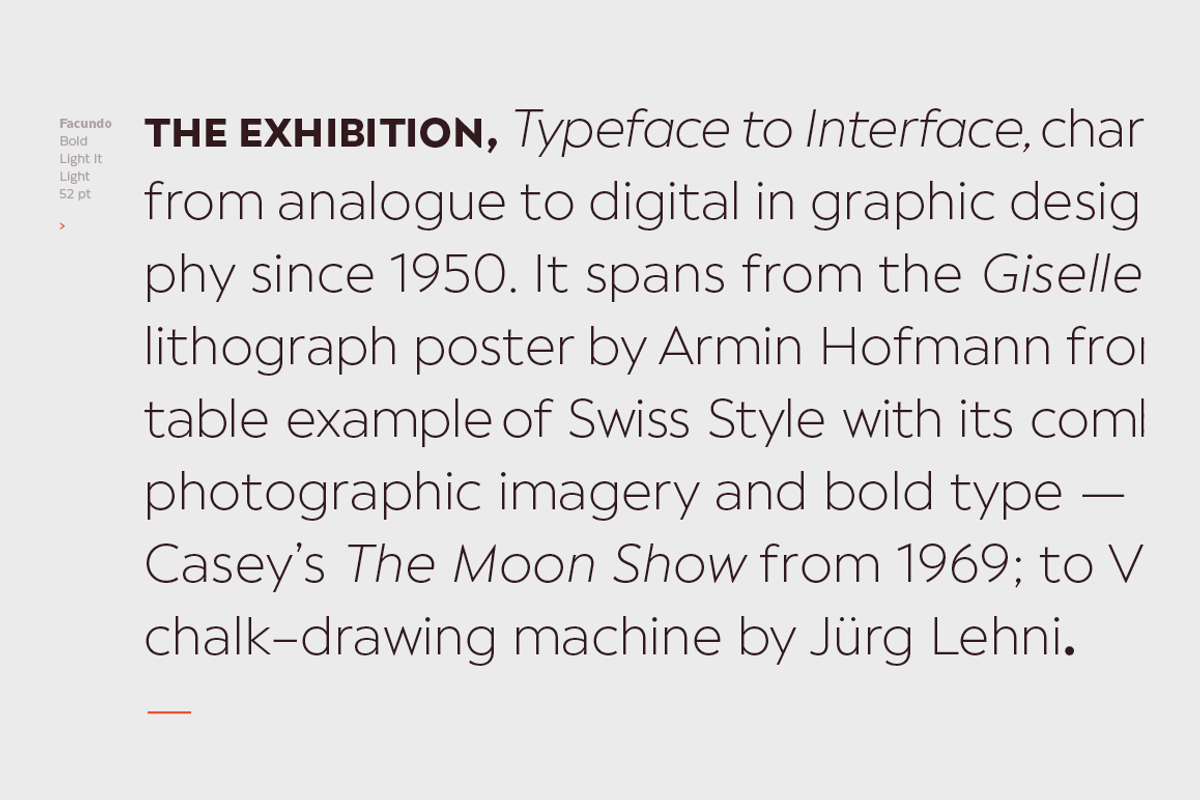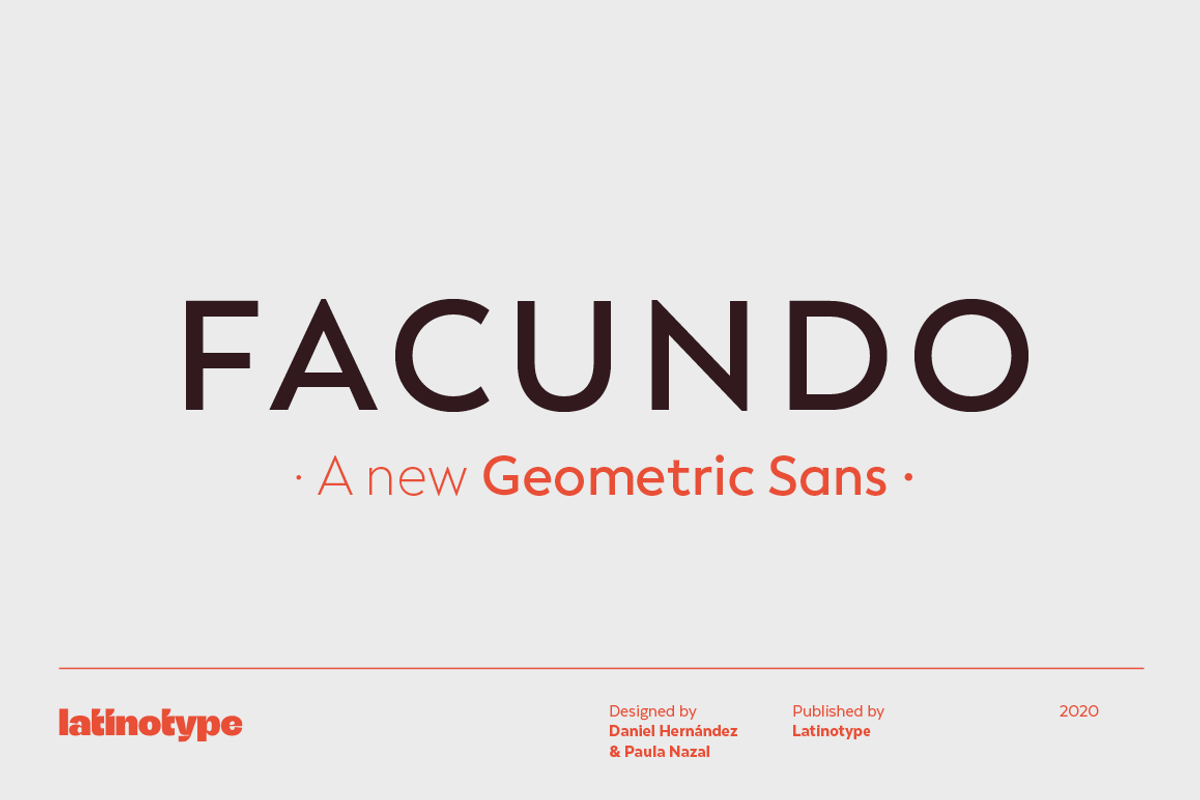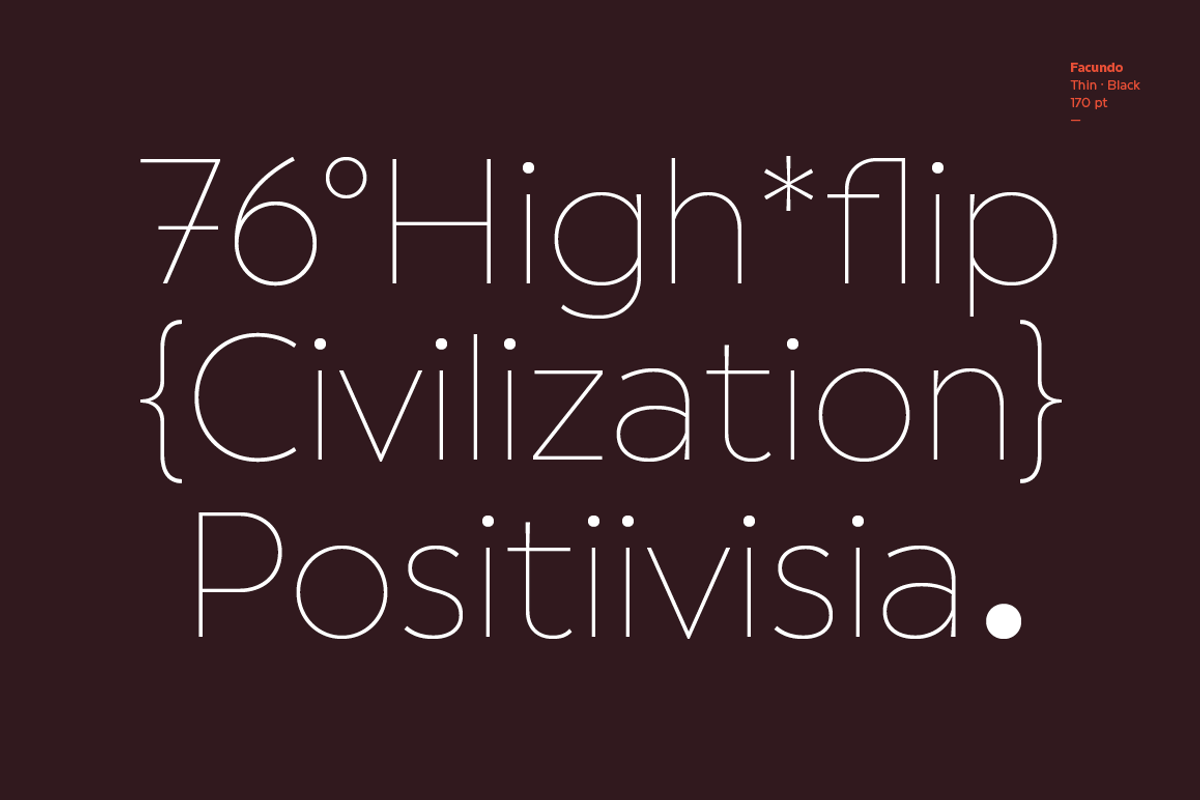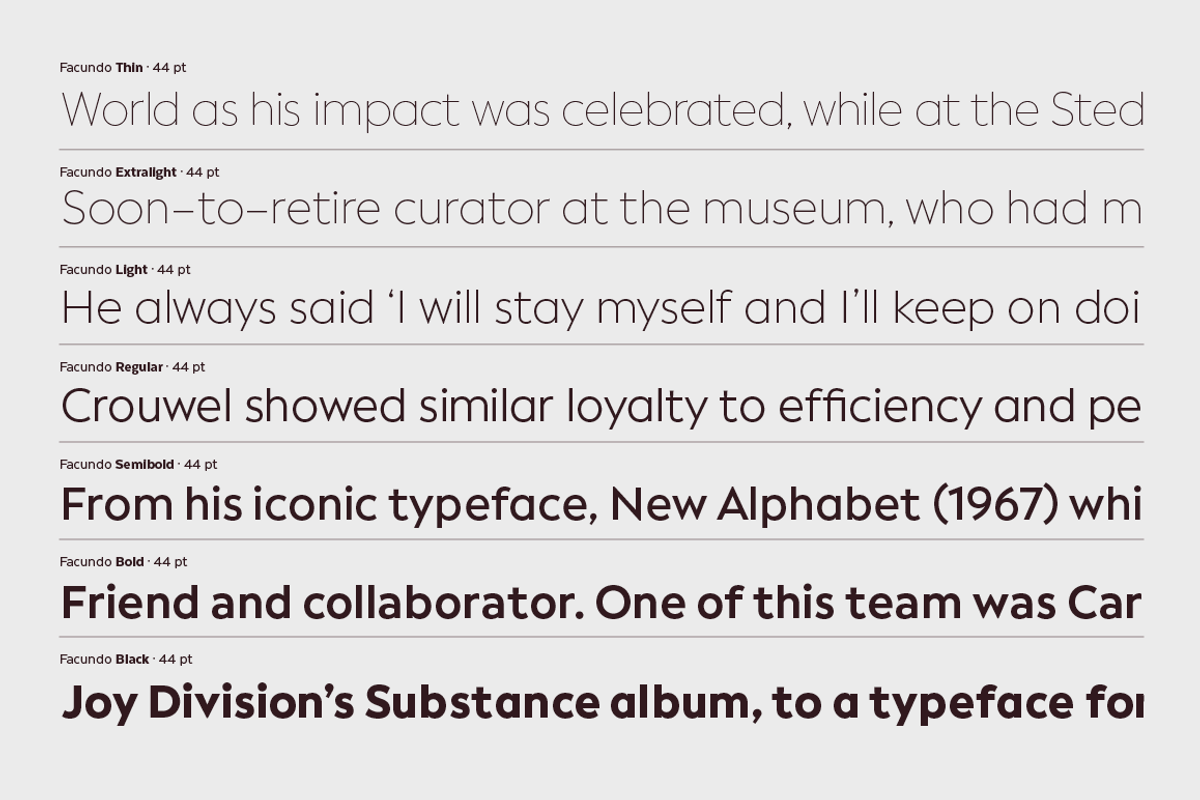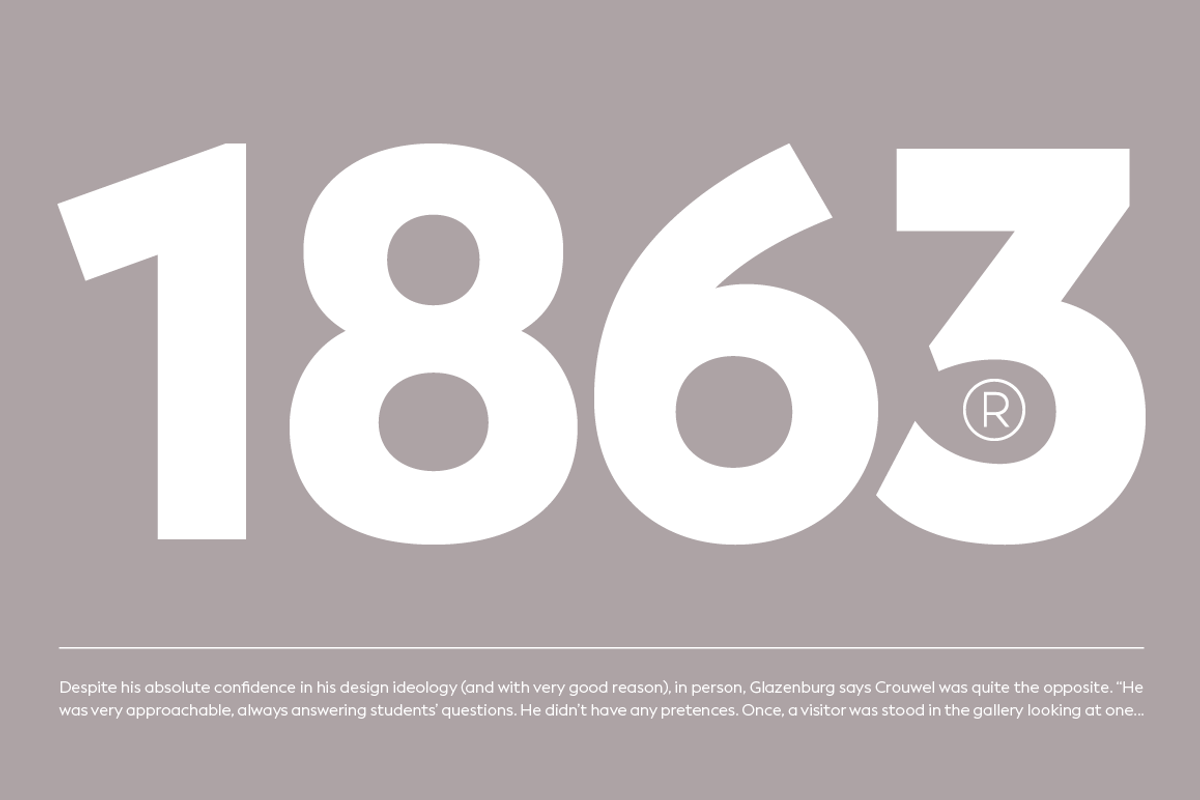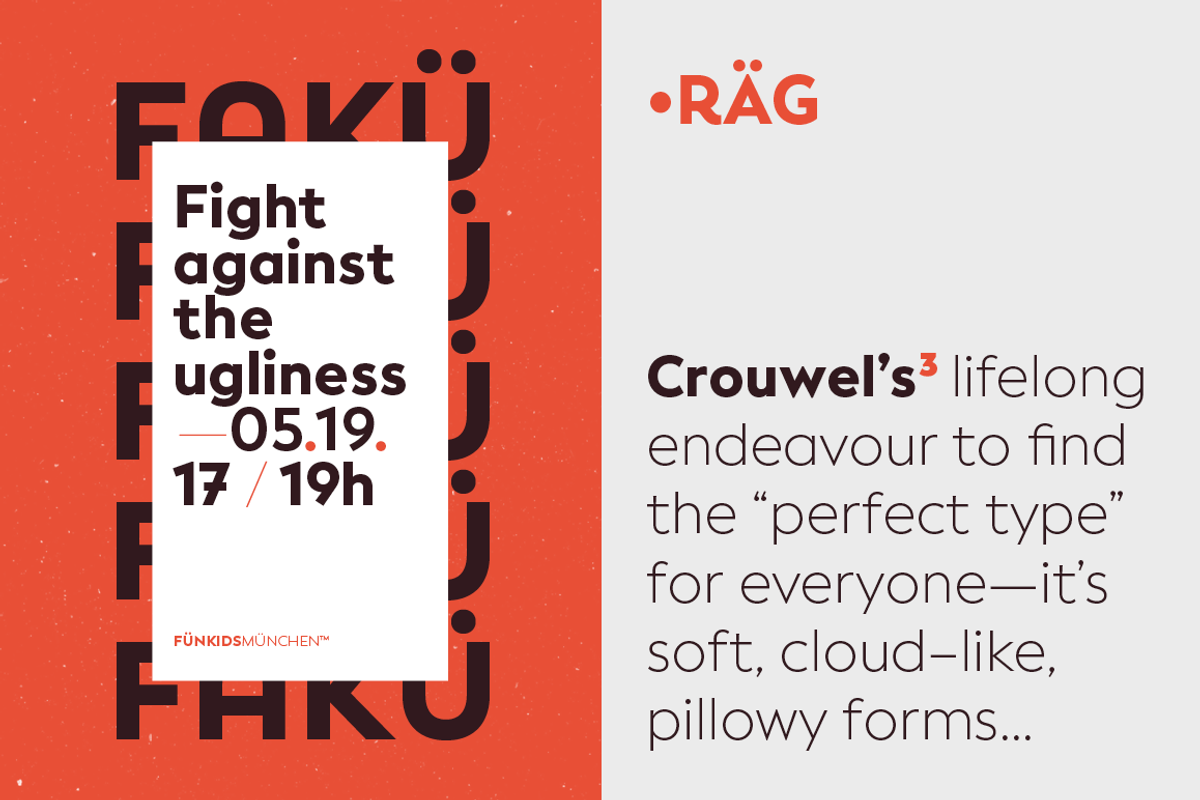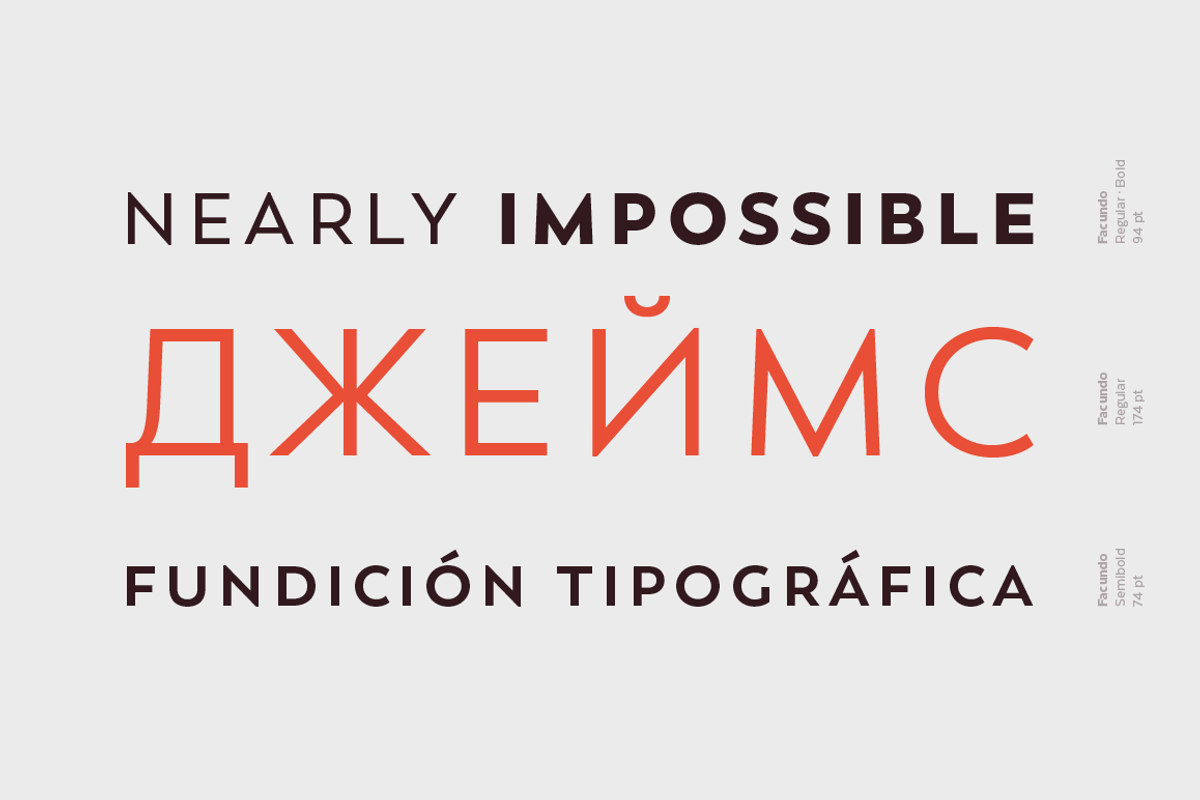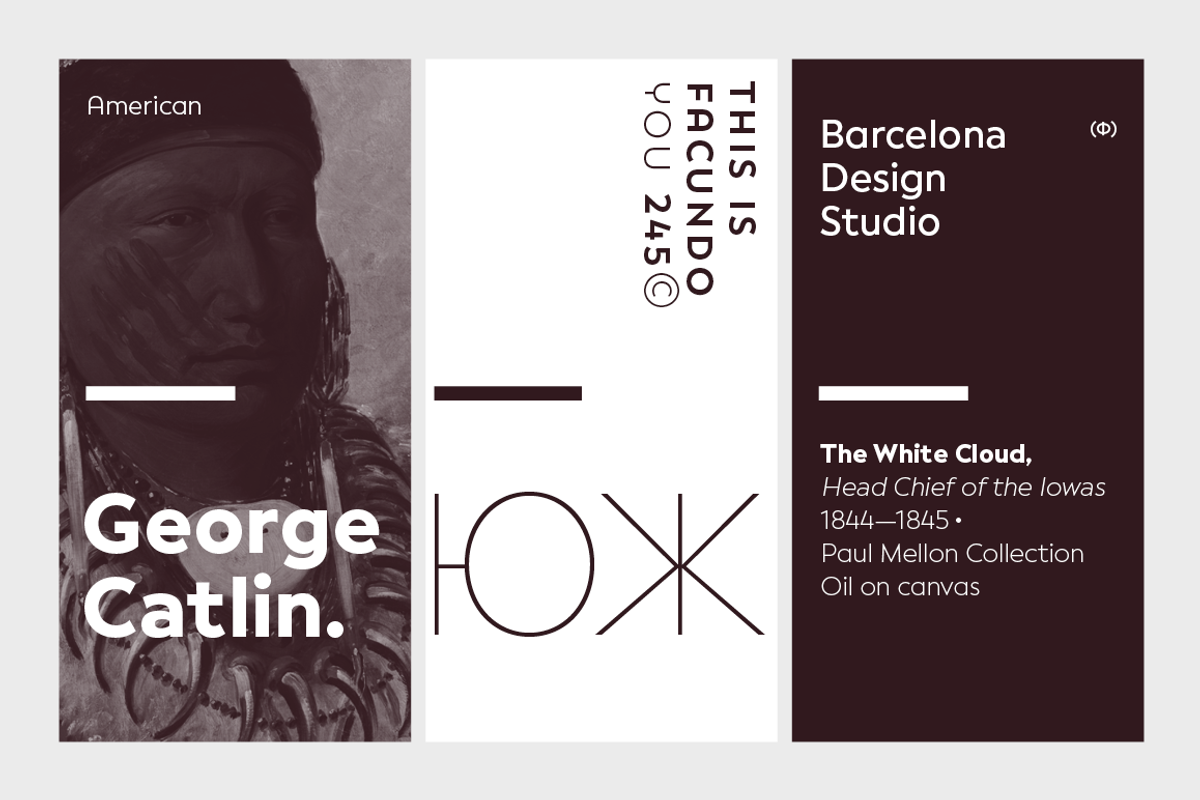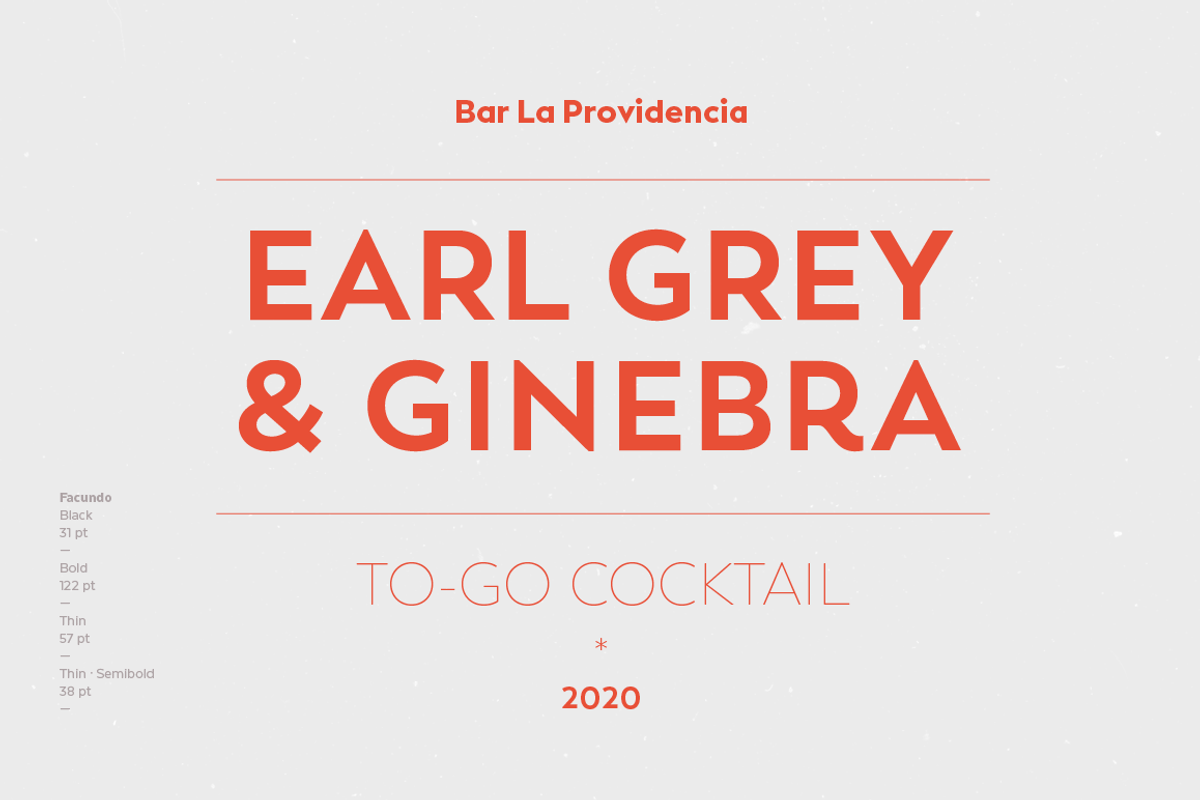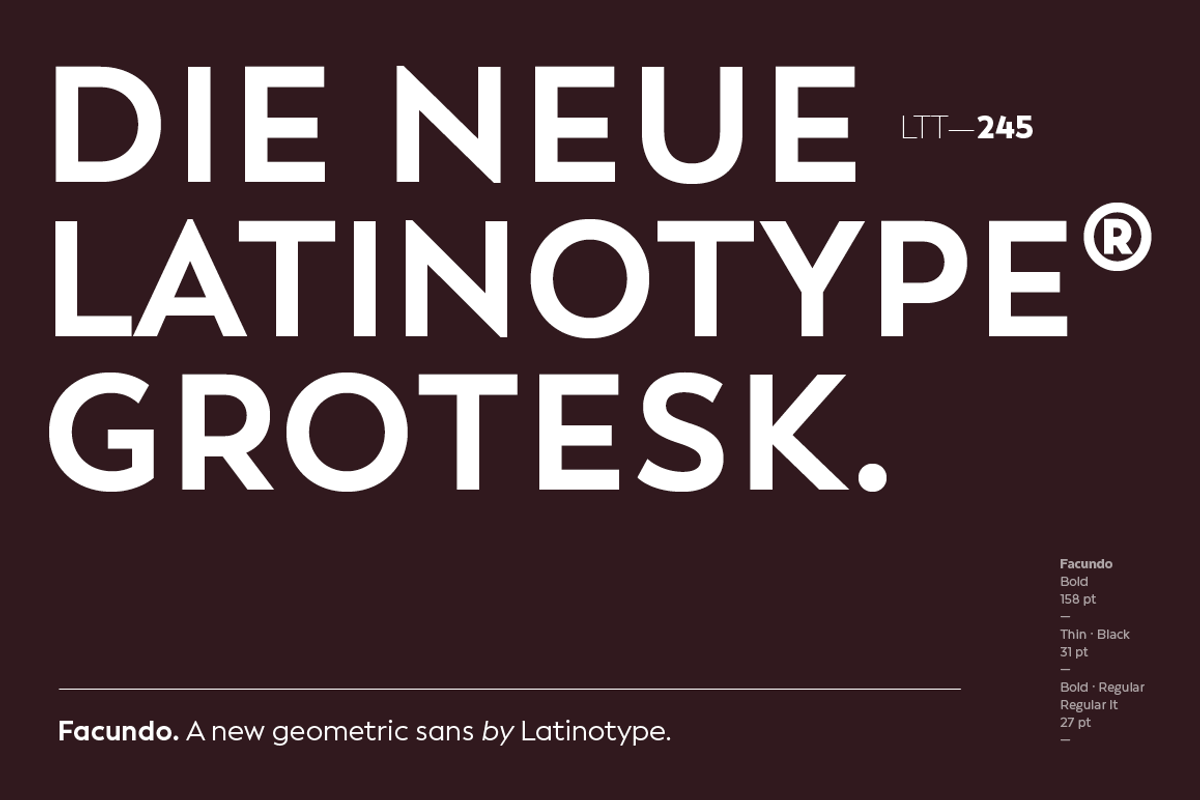
Facundo
Facundo is based on both simple geometric shapes and our hit Trend's uppercase glyphs yet subtle nuances make it stand out among its peers. Facundo may look familiar but has a modern and fresh feel, giving your designs a friendly, and at the same time, renewed and singular appearance.
Facundo comes in 7 weights, plus matching italics, well-suited to meet any corporate, brand identity or web design needs. The font contains a set of 715 characters which support over 200 languages that use both Cyrillic and Latin scripts.
Facundo was designed by Paula Nazal and Daniel Hernández. Digital editing and review by Rodrigo Fuenzalida.